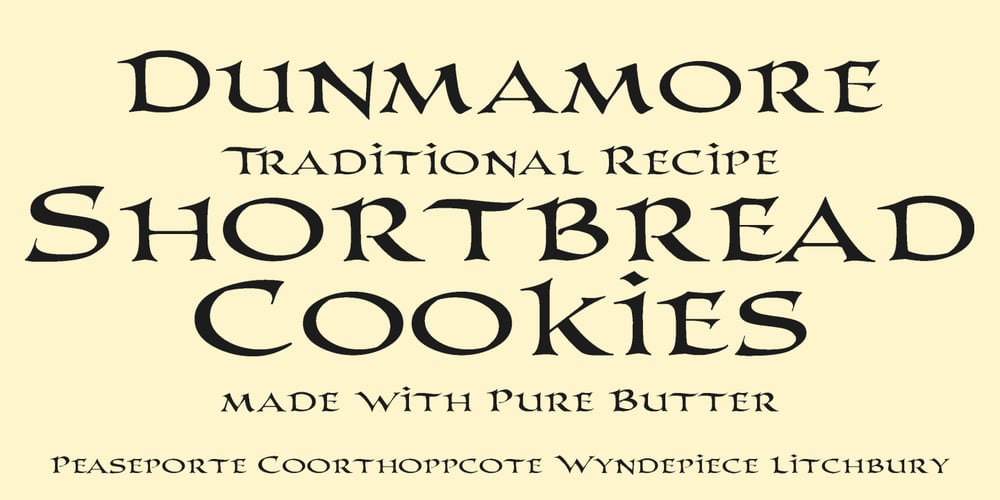
PR Columban Font Family was designed by Peter Rempel and published by PR Fonts. PR Columban contains 2 styles and family package options. The Irish monk Columbanus founded early monasteries across Western Europe starting in the Sixth Century, bringing literacy in his wake. As the Patron Saint of Motorcyclists, the adventurous Columbanus is both gallant and respected. The font is Classical Roman with a Celtic accent, great for a range of applications from the sacred to the profane.